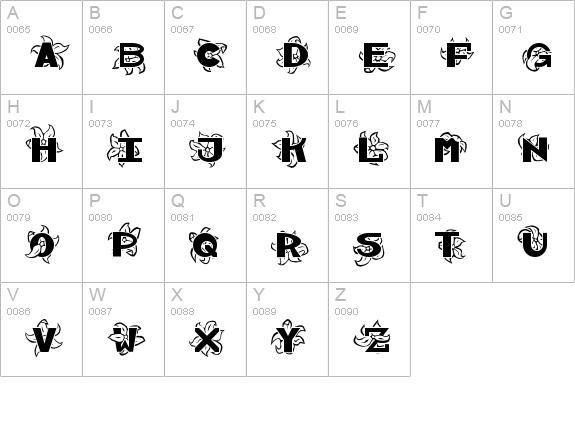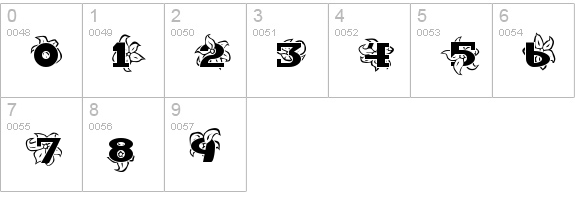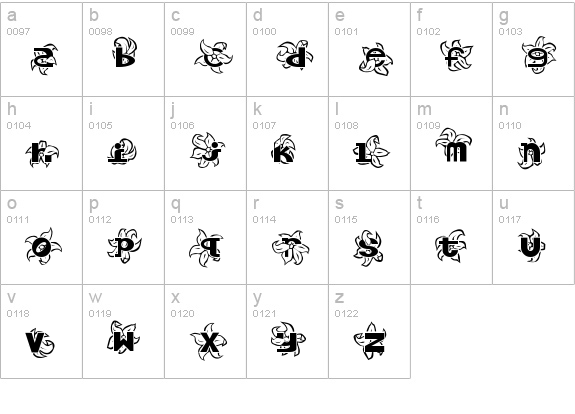
Hawaiiah Font Details
Introducing Hawaiiah, a stunning and versatile font that will transport you to the tropical paradise of Hawaii with its captivating design. This font embodies the spirit of the islands, capturing the beauty and vibrancy of its culture, landscapes, and people. With its intricate and unique letterforms, Hawaiiah stands out from the crowd, making a bold statement in any design project. Whether you're creating a tropical-themed branding, designing a vacation brochure, or crafting an eye-catching poster, this font is sure to leave a lasting impression. But what makes Hawaiiah even more extraordinary is that it is not only a visually striking font, but it is also available for free! Yes, you read that right. Hawaiiah can be yours without spending a dime. Simply head over to FontsMarket.com and download this font to add a touch of Hawaiian charm to your creative endeavors. Whether you're a professional graphic designer or simply someone who appreciates the beauty of typography, Hawaiiah is a must-have addition to your font collection. Its versatility allows it to be used in a variety of projects, from logos and headlines to invitations and social media graphics. So don't miss out on this fantastic opportunity to enhance your designs with the captivating allure of Hawaiiah. Download it for free today at FontsMarket.com and let the tropical vibes flow through your typography.